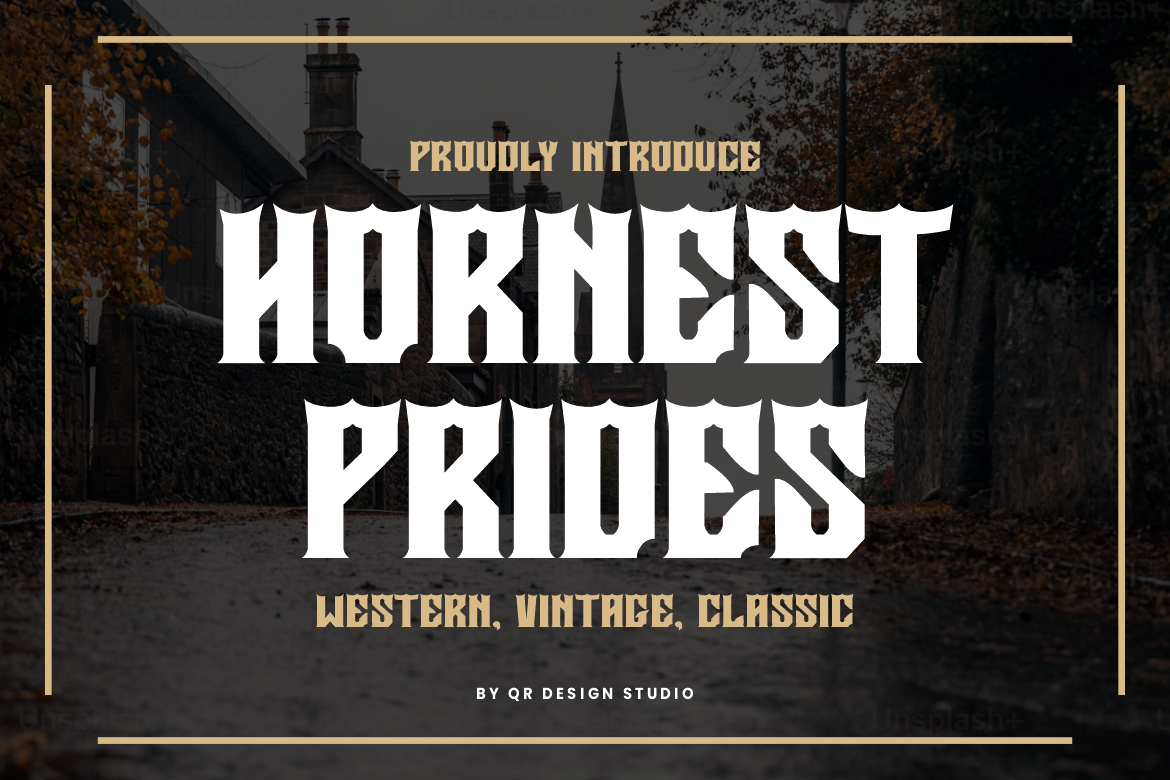
Hornest Prides Classic Western Font
Hornest Prides Font is a bold and authentic display font. The font is suitable for any branding project like poster, logo, sport, and many more. Outstanding in a wide range of contexts.